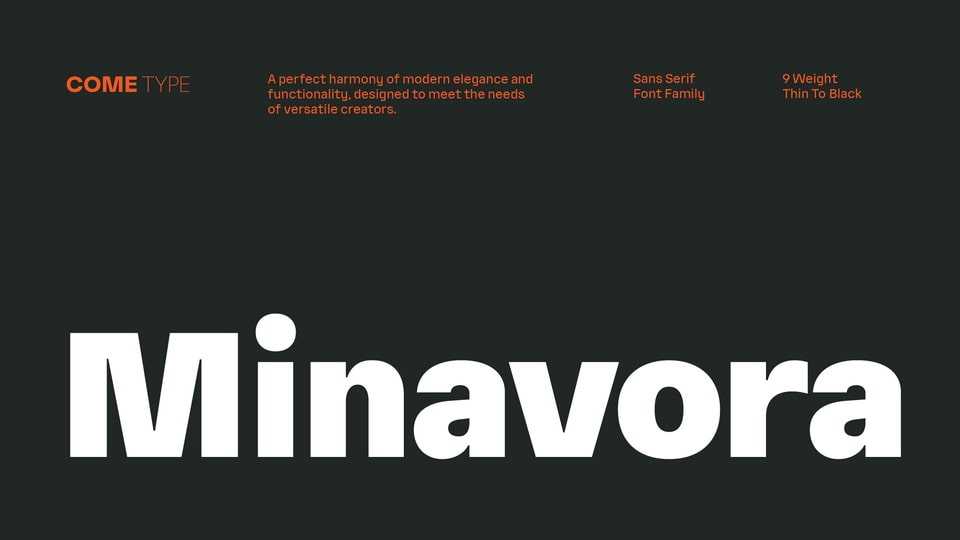
Download Minavora font, a modern sans-serif typeface crafted with precision and minimalist aesthetics. Minavora offers exceptional versatility for a wide range of design needs, including branding, editorial projects, and digital design.
Designer: ComeType